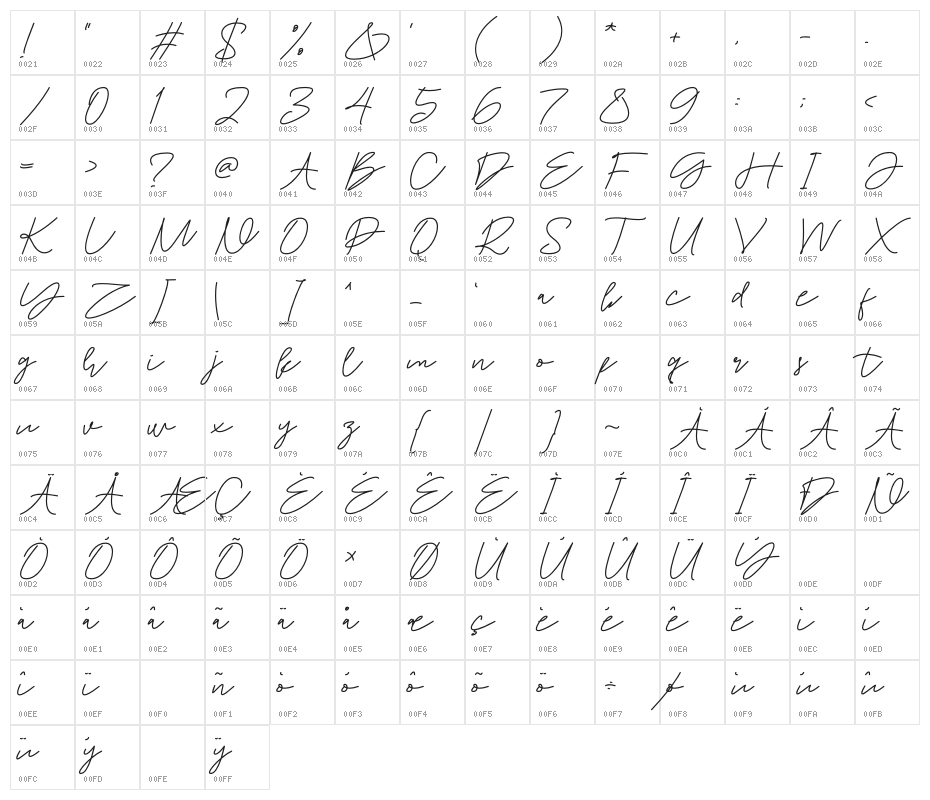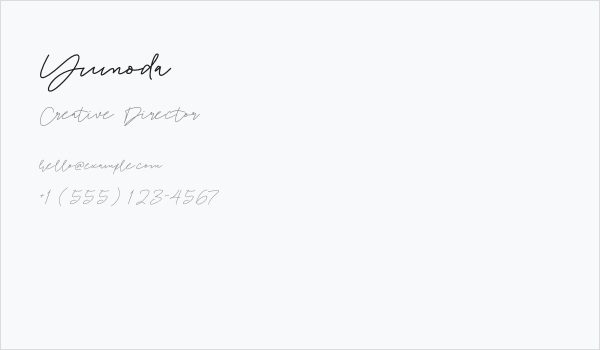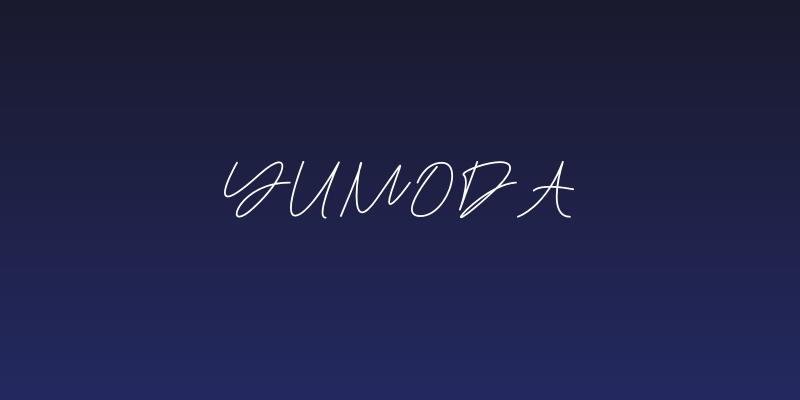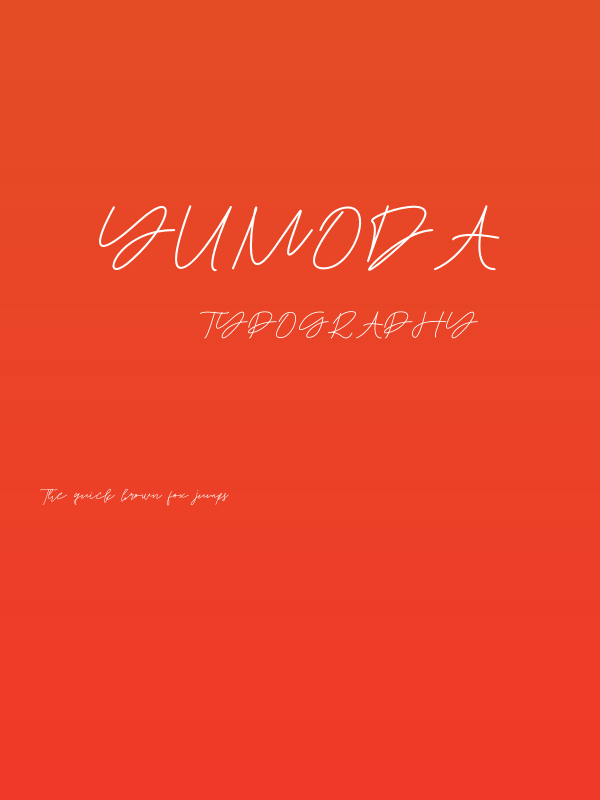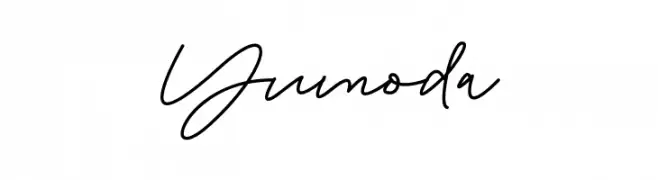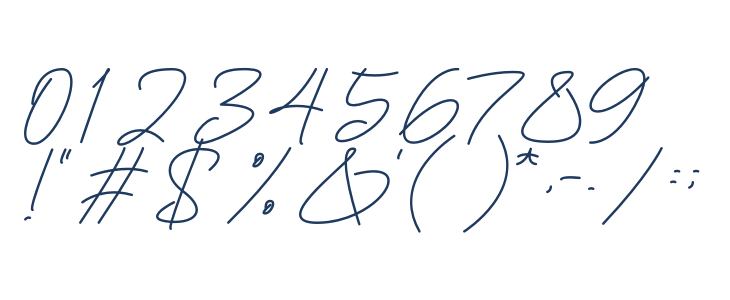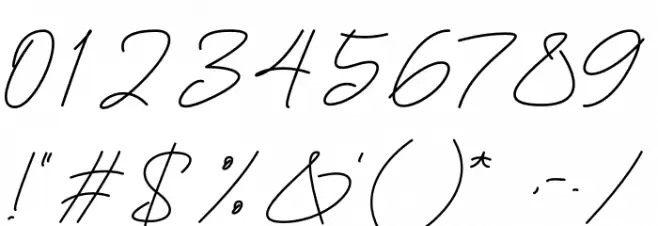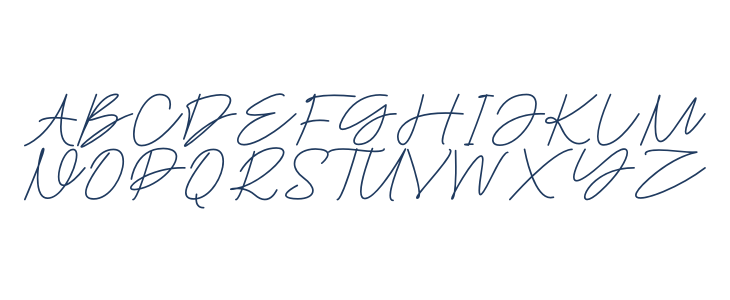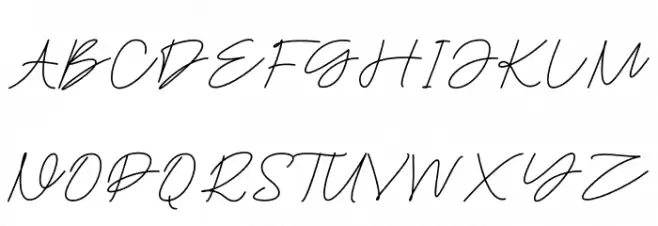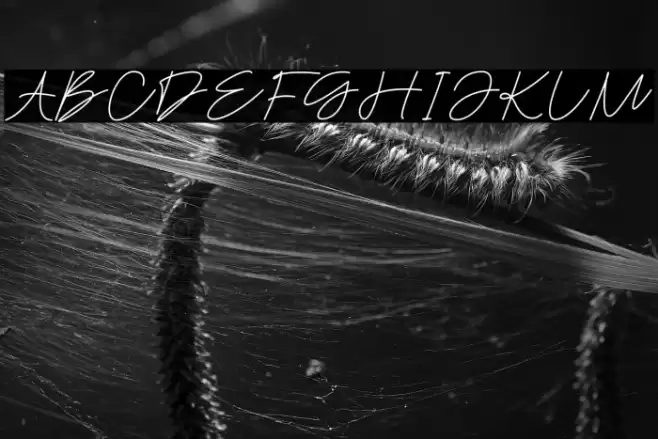
Yumoda Font
Yumoda Description
A cursive, handwritten script font with a flowing, elegant style, featuring both uppercase and lowercase letters, numbers, and punctuation.
| Overall Style | Elegant, Script, Handwritten |
| Use Case | Invitations, greeting cards, branding, logos, decorative text. |